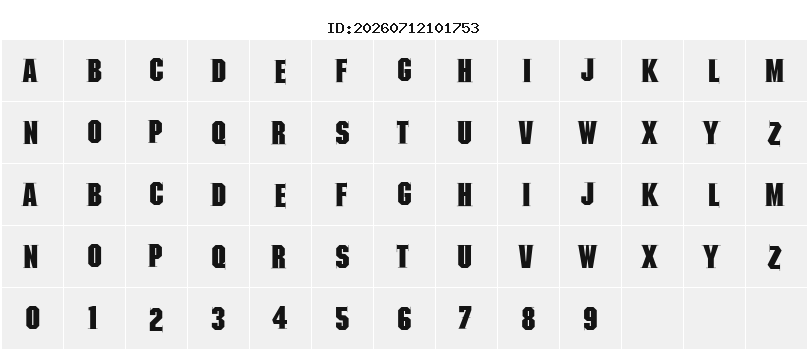
MannohKSerif Preview
• Font Name: MannohKSerif
• Font ID: MannohKSerif
• Full Font Name: MannohKSerif
• PostScript Name: MannohKSerif
About MannohKSerif.ttf
MannohKSerif.ttf is a modern, elegant sans-serif font designed for ultimate readability and visual harmony. Perfect for branding, headlines, web design, and print materials.